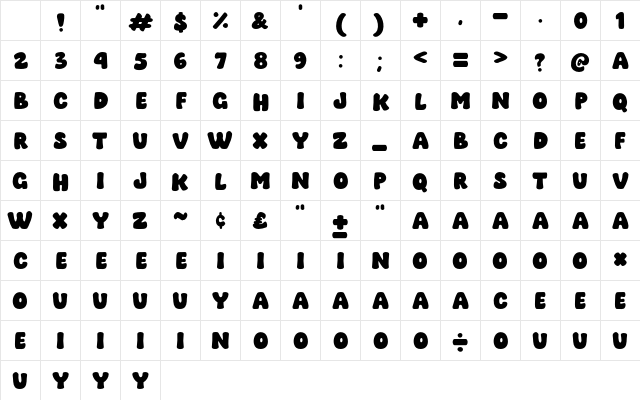
Complete Waffle Cake Regular glyph index. Displaying only characters natively supported by Waffle Cake Regular font.
Waffle Cake is a composed and adaptable typeface that performs quietly and consistently across a wide range of design contexts.